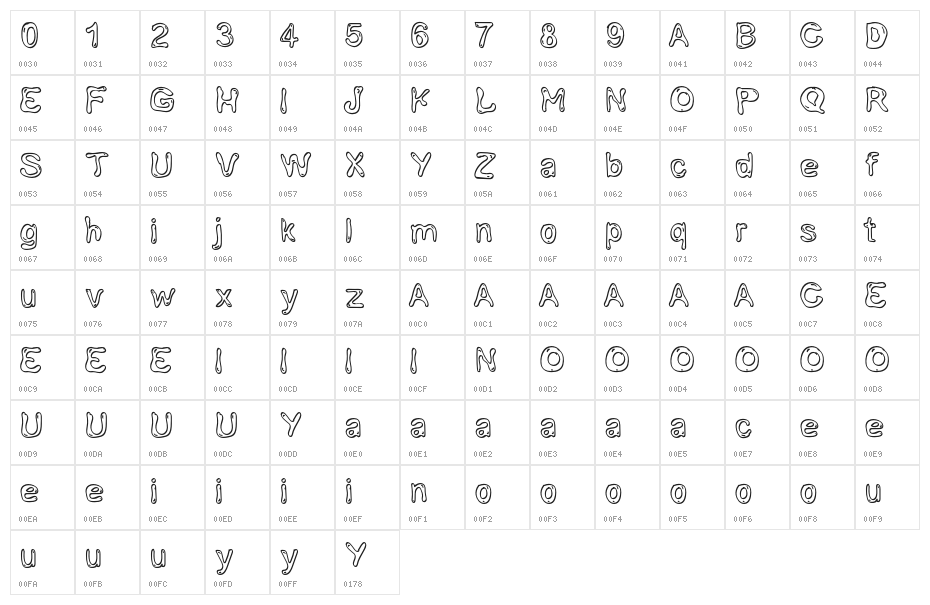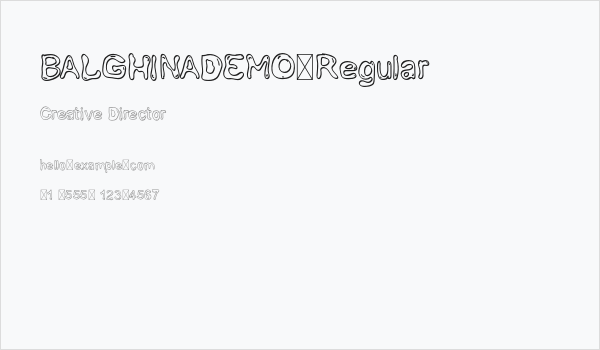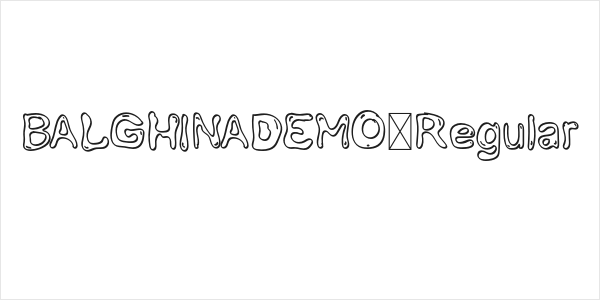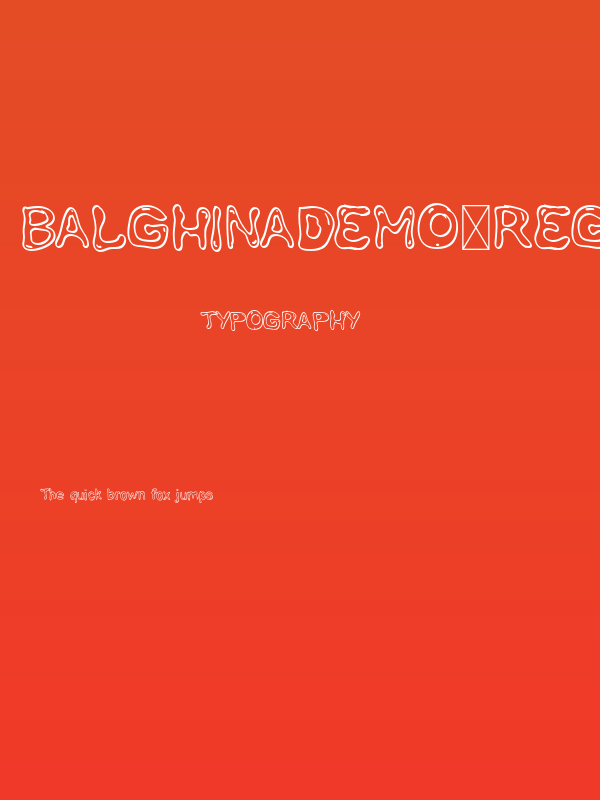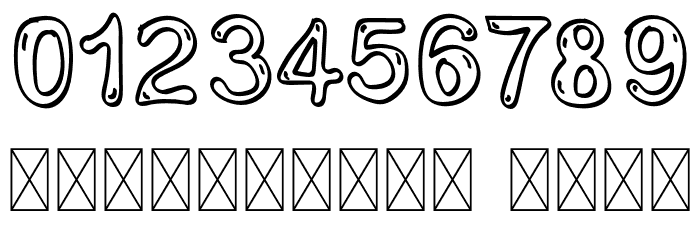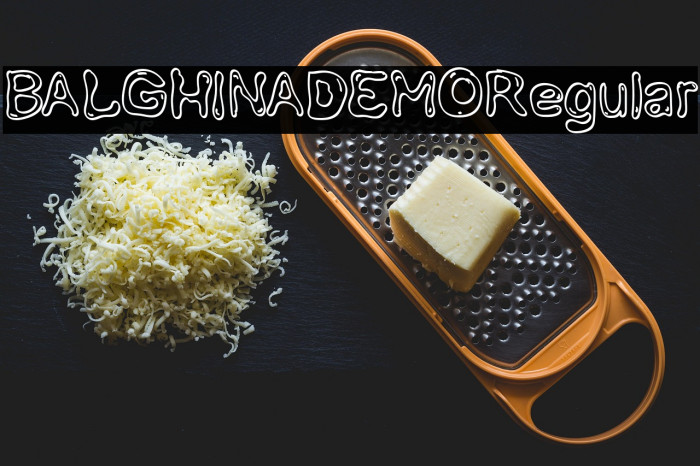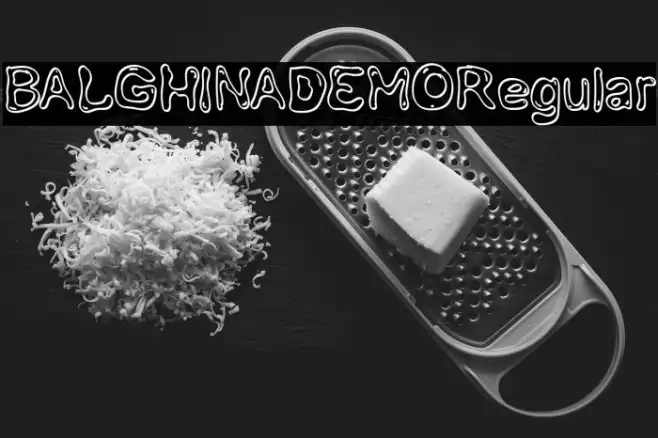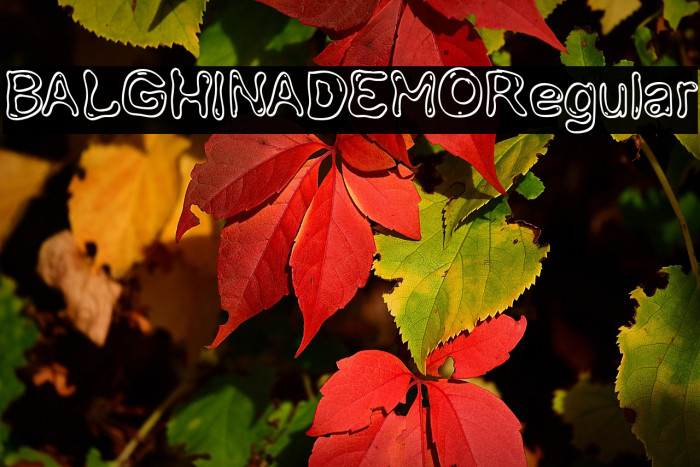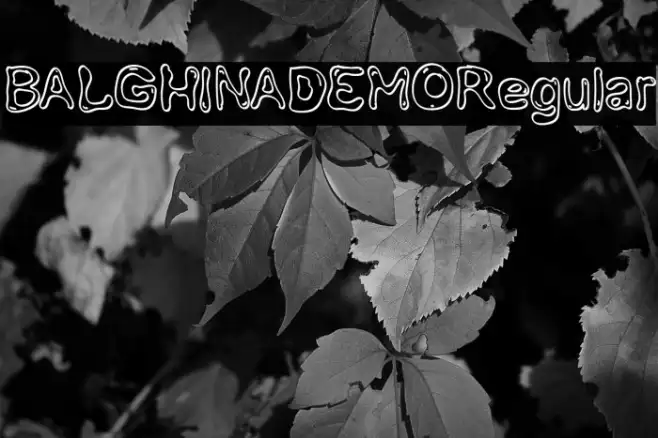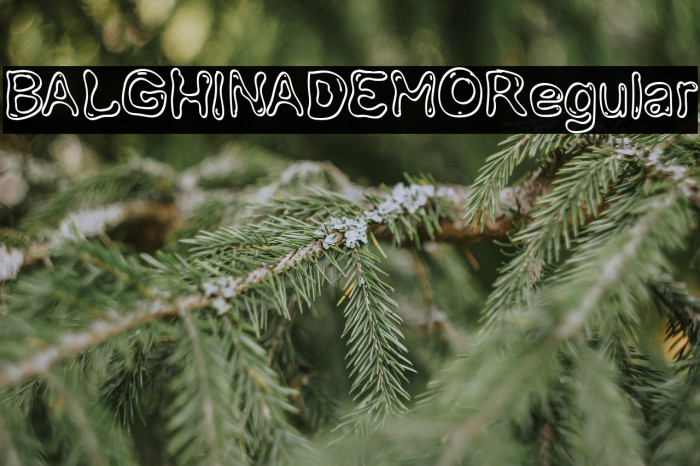
BALGHINADEMO-Regular Font
BALGHINADEMO-Regular Description
This font features a playful and whimsical design with a hand-drawn aesthetic. The characters are outlined with a bold, irregular stroke that gives them a unique, organic feel. Each letter has a slightly uneven shape, adding to the casual and artistic vibe. The font maintains a consistent style across uppercase, lowercase, and numeral characters, with special characters following the same design principles. The overall appearance is lively and dynamic, making it suitable for creative and informal projects.
| Overall Style | Whimsical, Artistic |
| Proposed Projects | Ideal for children's books, creative posters, playful branding, and artistic invitations. |